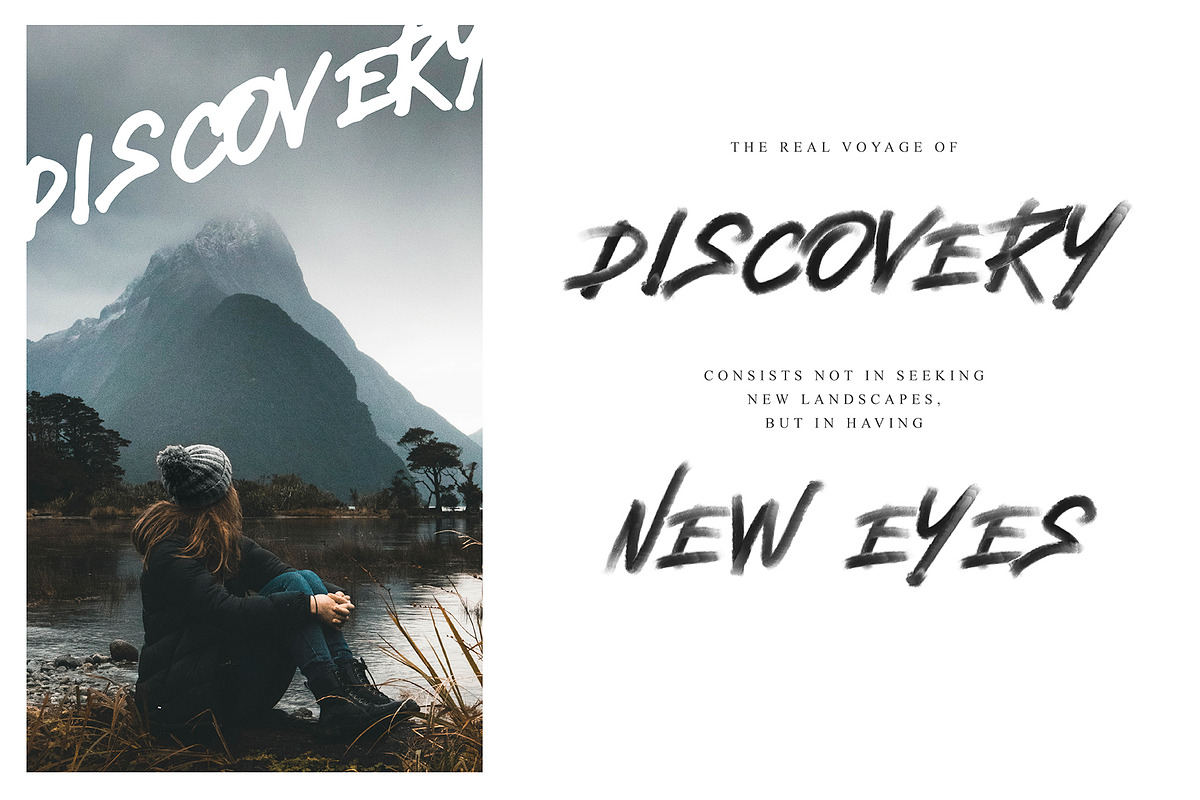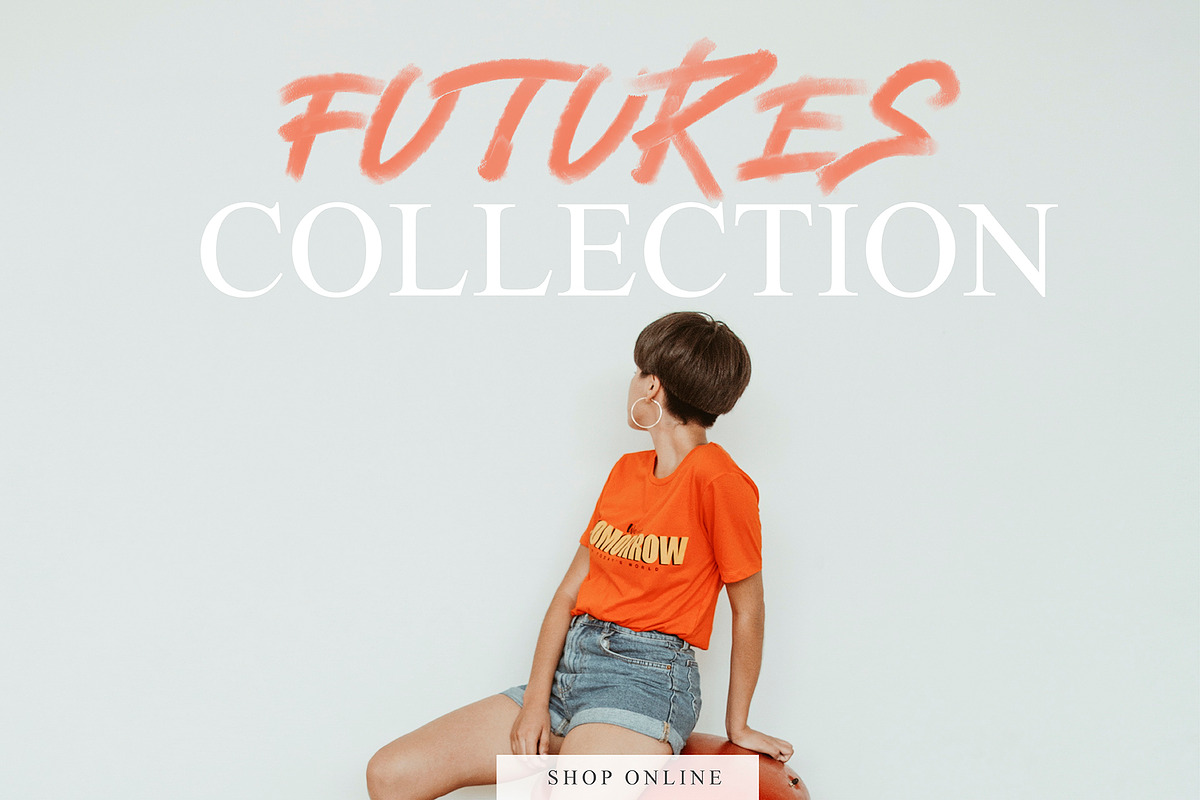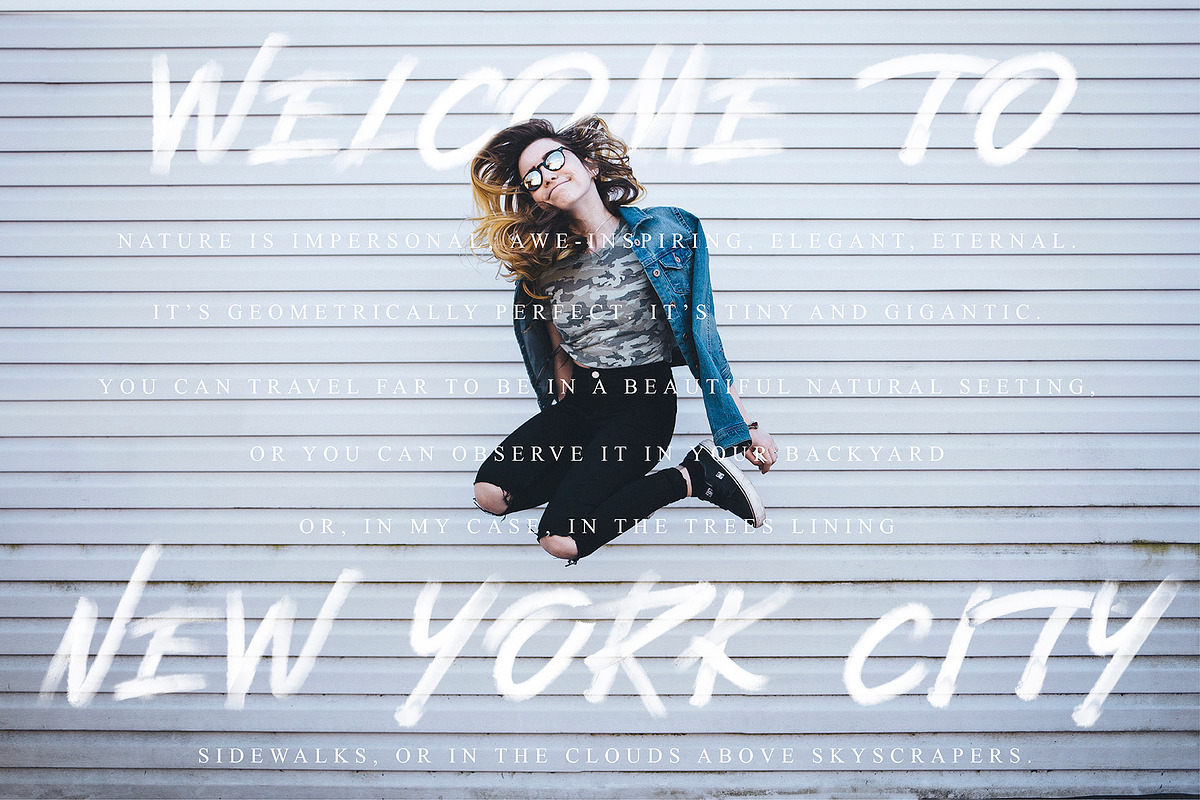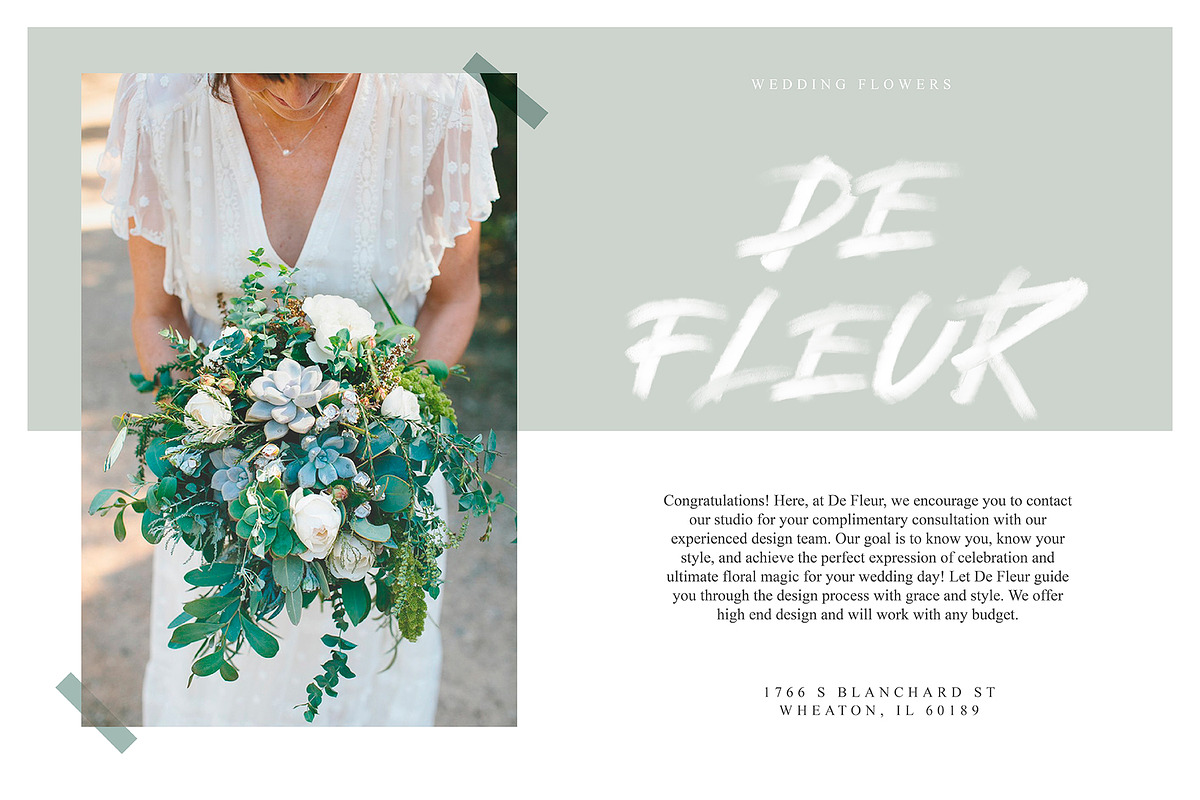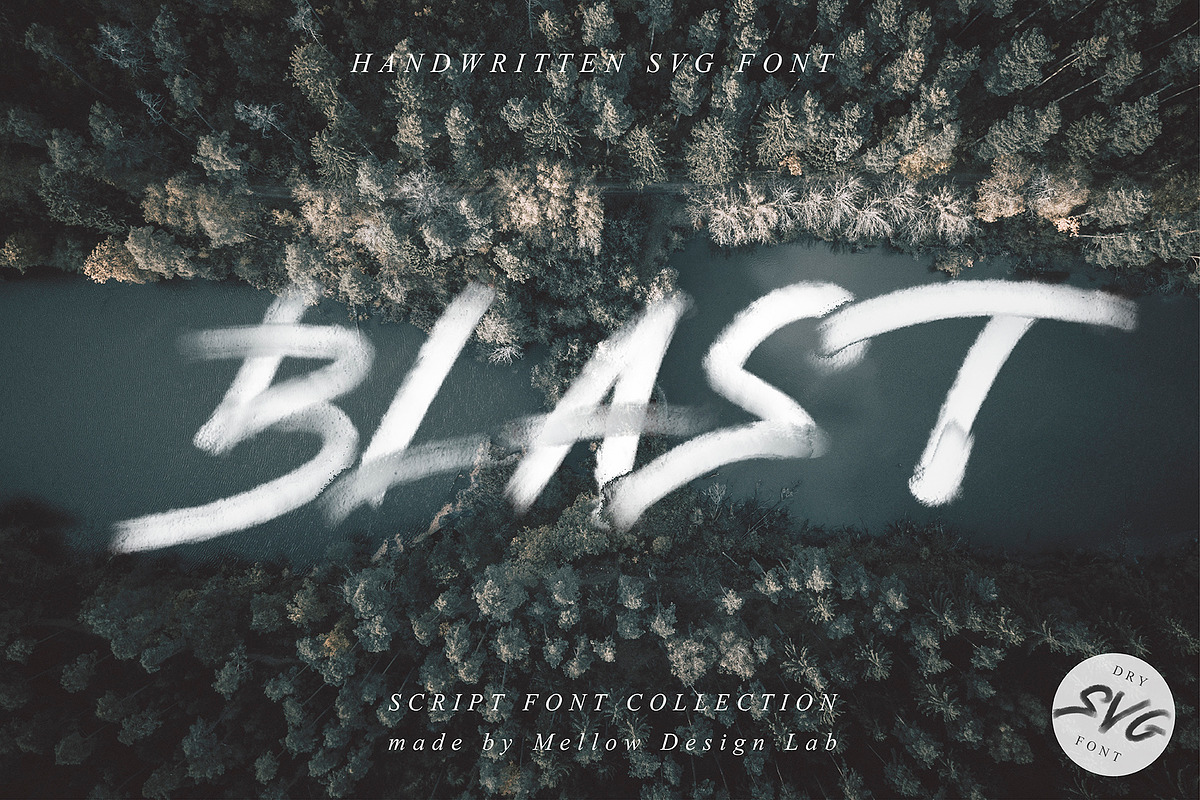
Blast SVG Font
Font that will give tenderness to your project. Written by hand, it preserves transparency and texture. Combine it with other fonts and add style in your project. This handwritten font is ideal for branding and decorate your any project.
This font are perfect for wedding invitation or your blog. Also with their help, you can create a logo or beautiful frame for your home. Or just use for your small business, book covers, stationery, marketing, magazines and more.